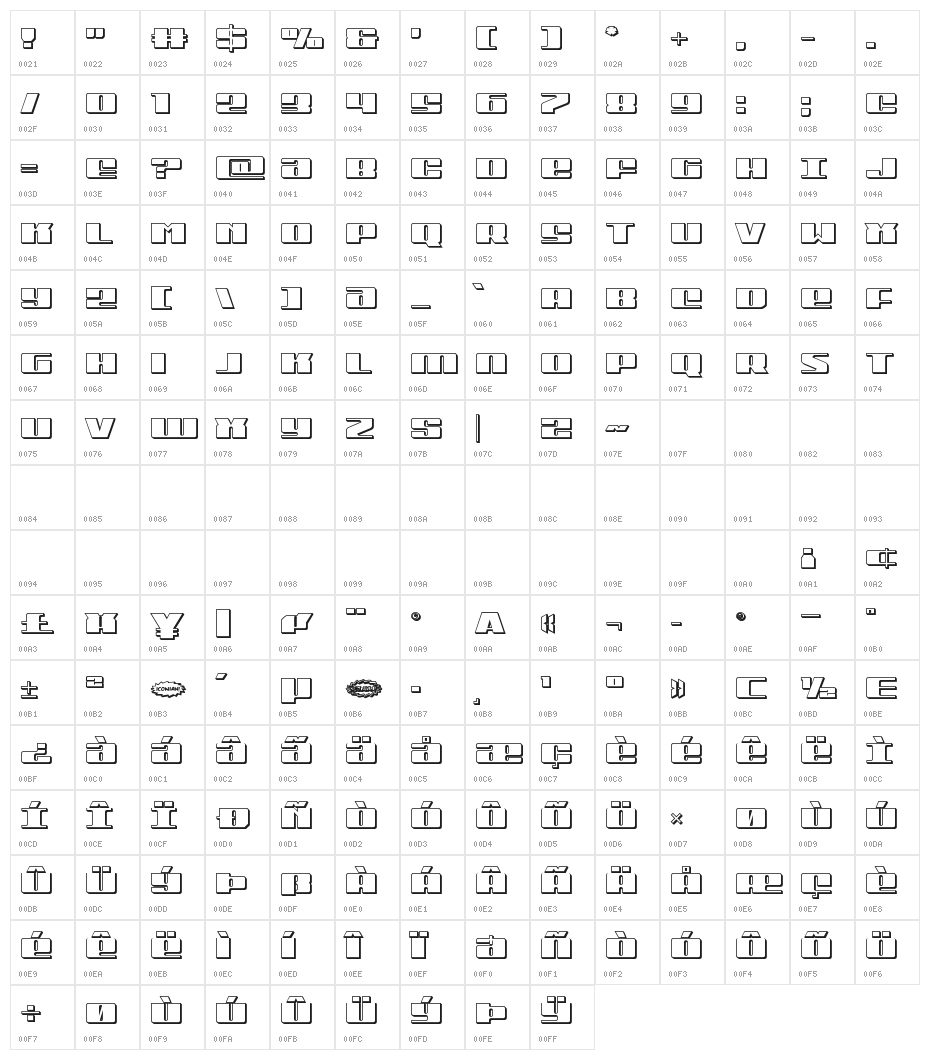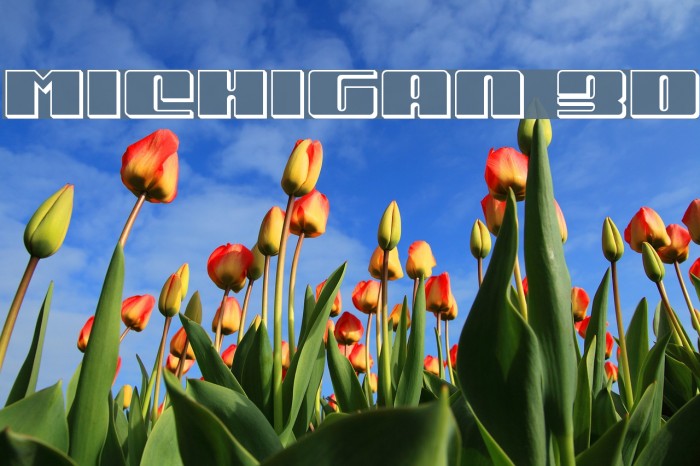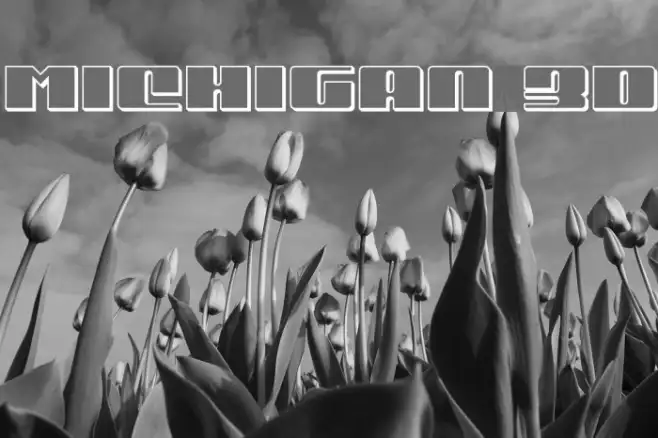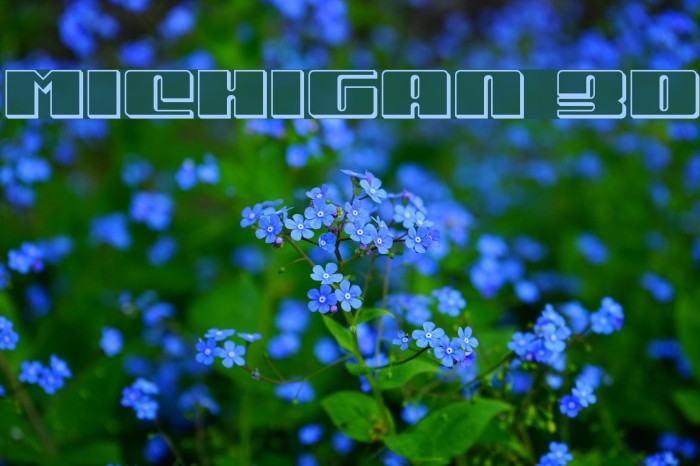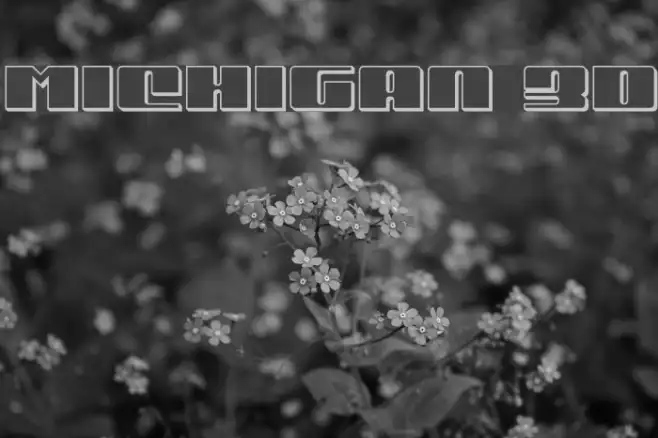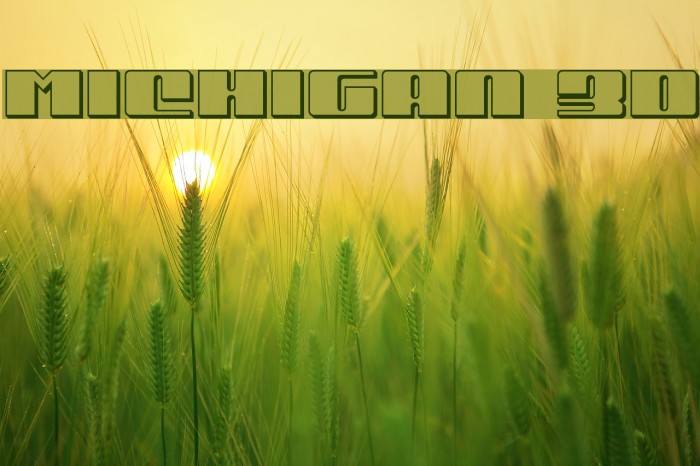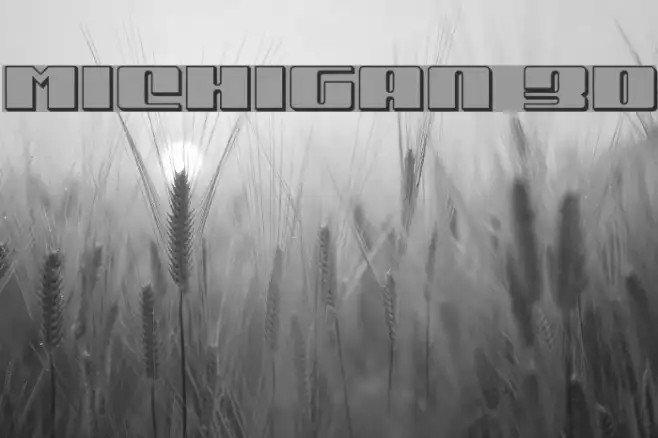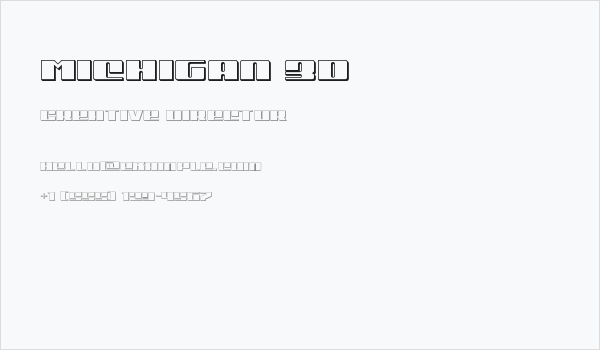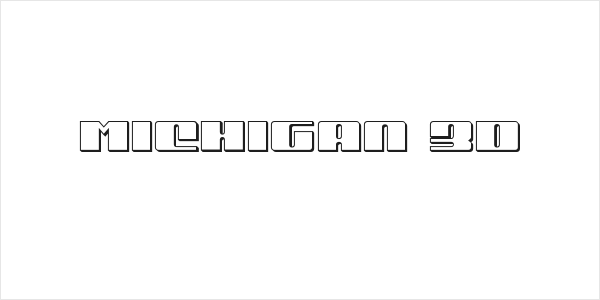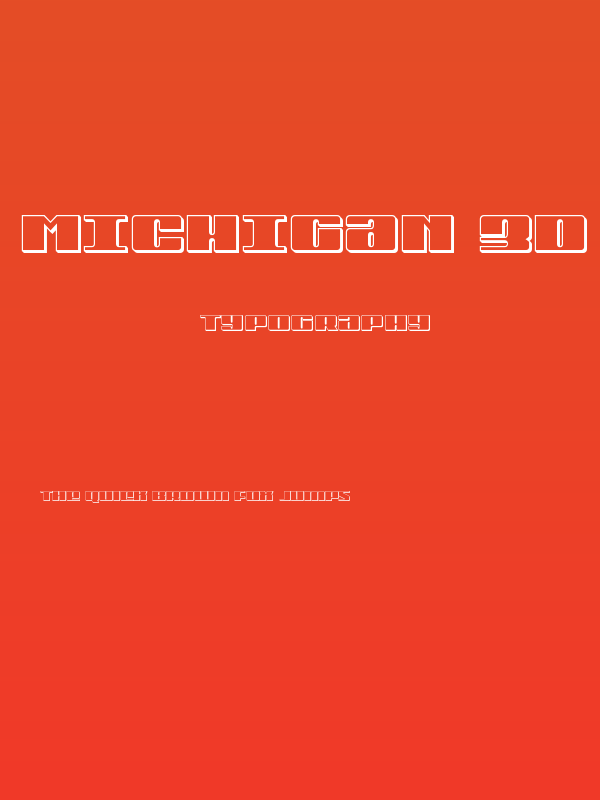
Michigan 3D Font
Michigan 3D Description
This font features a bold, three-dimensional appearance with a strong geometric structure. Each character is outlined, creating a hollow effect that enhances its 3D look. The design is consistent across uppercase, lowercase, and numerical characters, maintaining a uniform style. The edges are sharp and angular, giving it a futuristic and industrial feel. The spacing between characters is moderate, allowing for clear readability while maintaining its distinct style. This font is ideal for projects that require a modern and impactful visual presence.
Proposed ProjectsIdeal for branding, posters, video game titles, and any project needing a modern, eye-catching typeface.